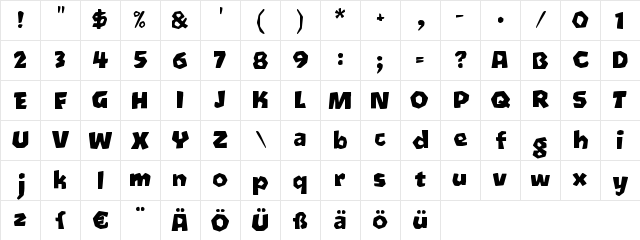
Oetztype Regular Free Font
Oetztype Regular
Design Context for Oetztype
Oetztype is a composed and adaptable typeface that performs quietly and consistently across a wide range of design contexts.